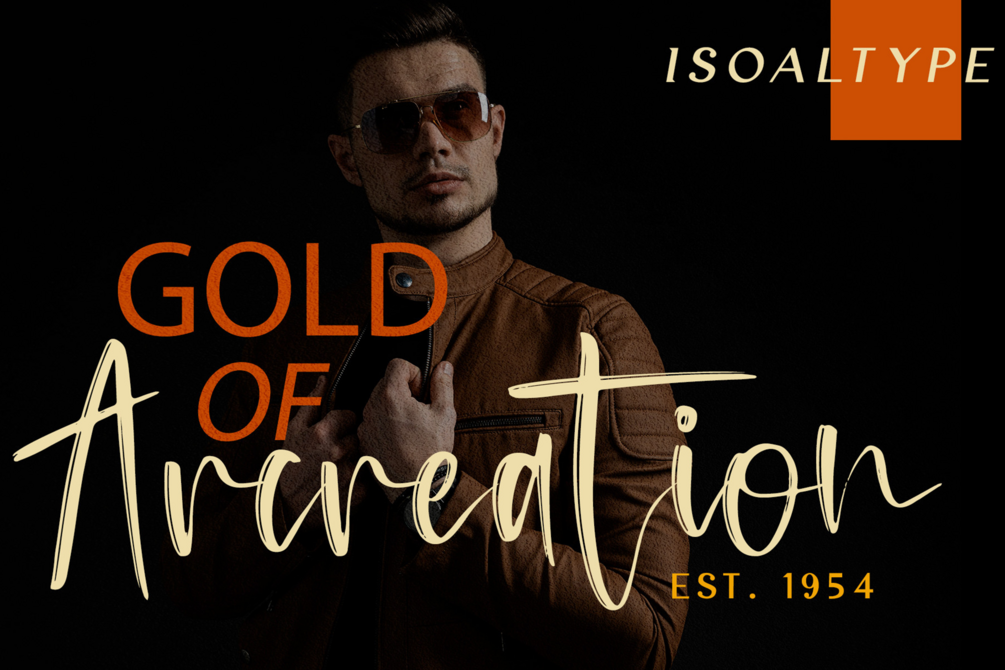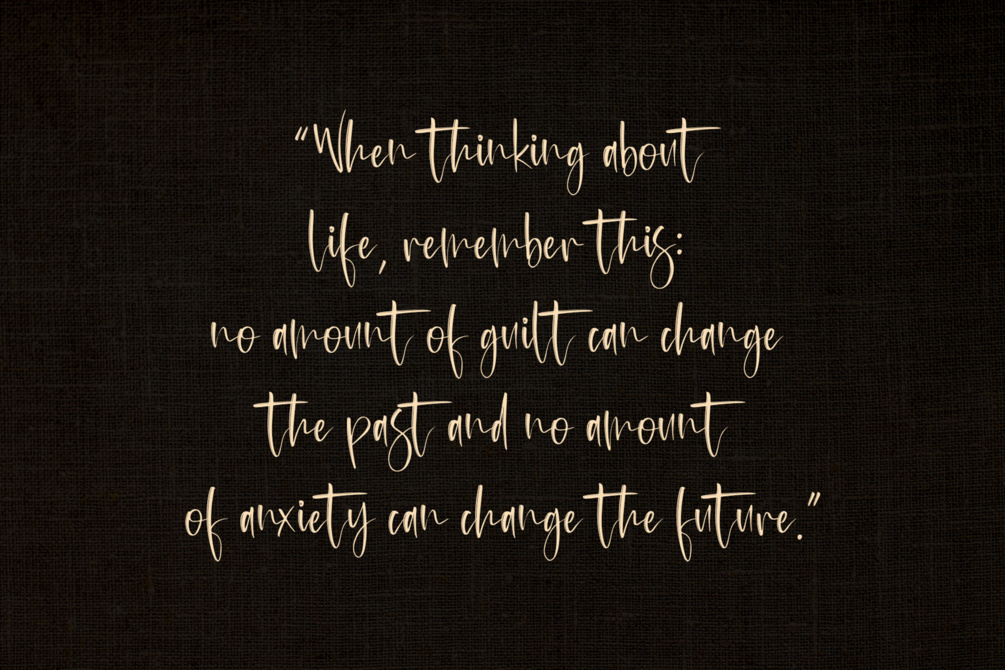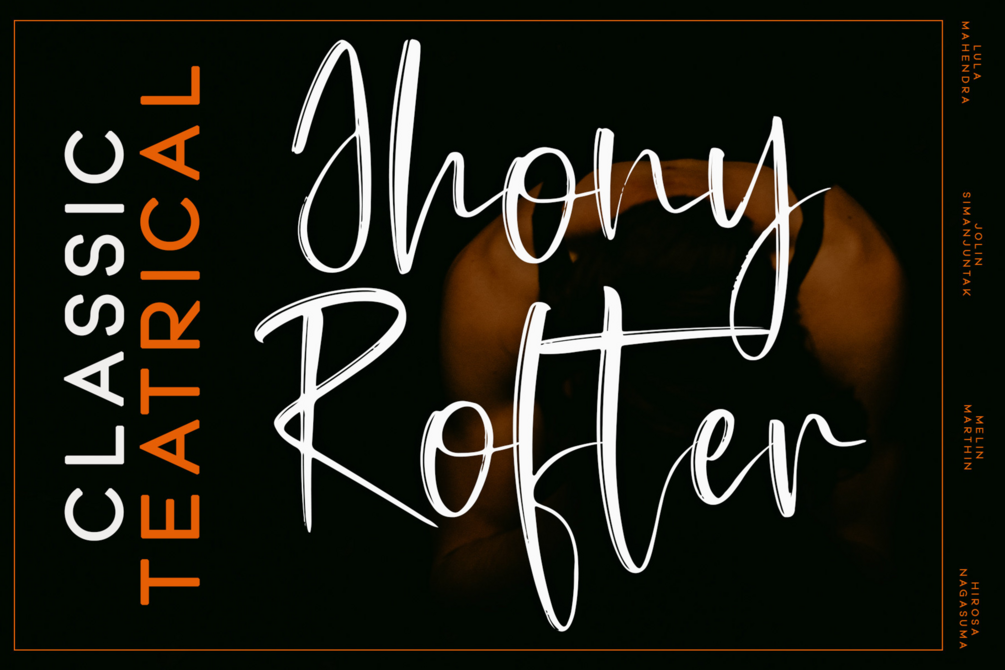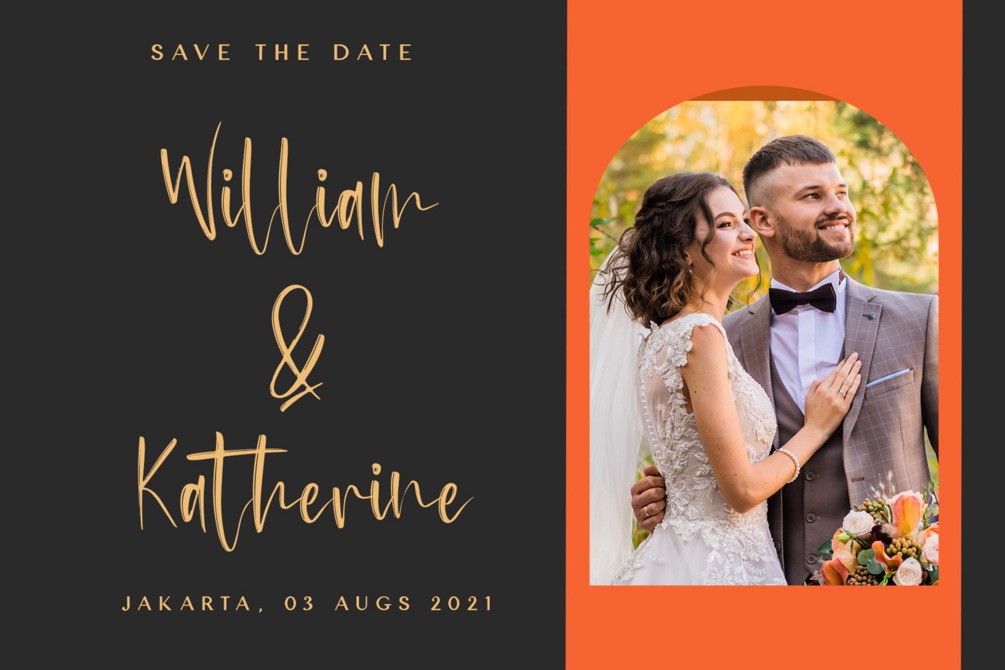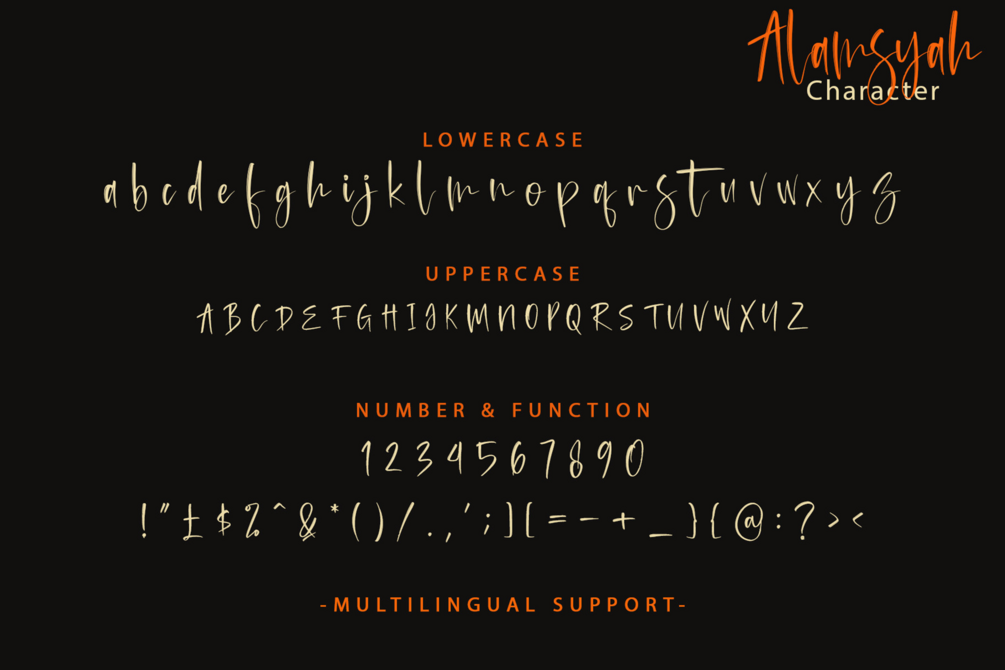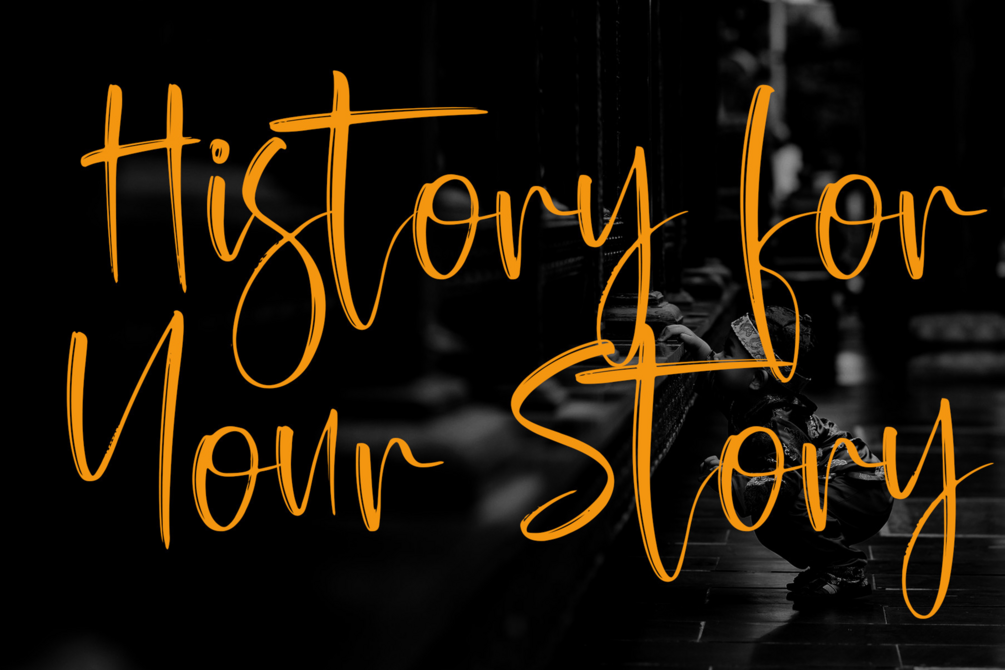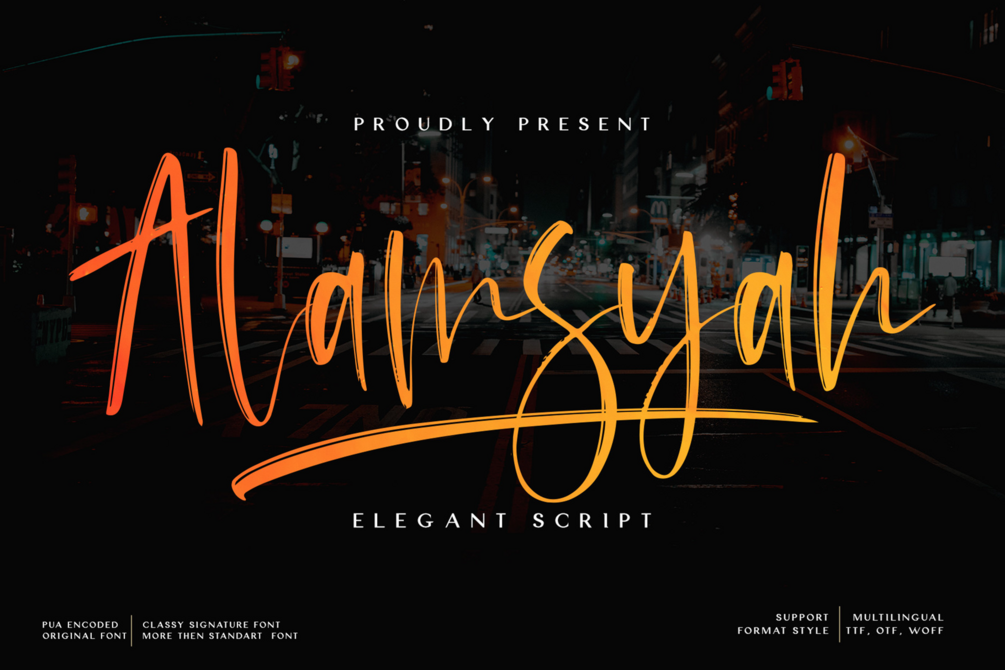
Alamsyah
Alamsyah is a stylish, thin lettered and asymmetrical handwritten font. No matter the topic, this font will be an incredible asset to your fonts’ library, as it has the potential to elevate any creation.